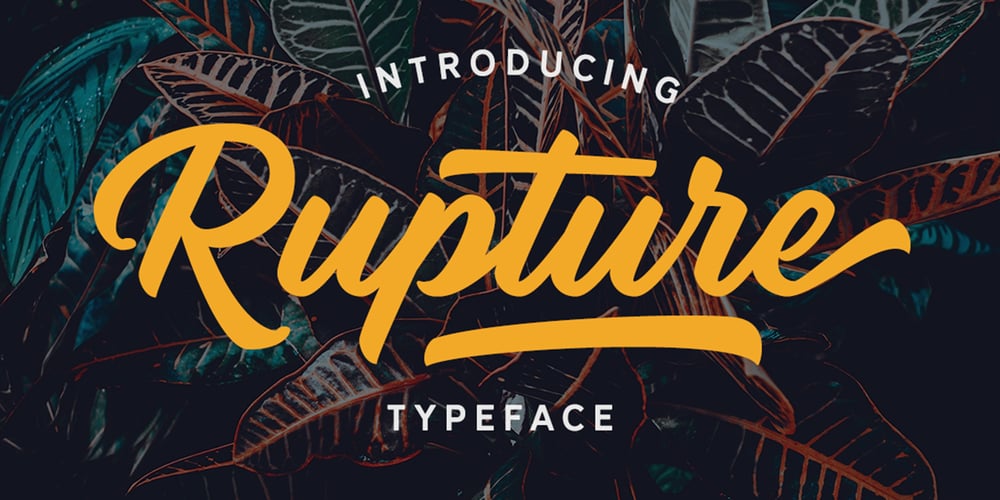
Rupture
Rupture font
Rupture Font Family was designed by Hendry Juanda and published by Letterhend. Rupture contains 1 styles and family package options. Rupture is a bold and modern script that will fulfil your design needs for casual themes such as logotype, quotes, watermarks, and more. This has many OpenType features like ligatures, stylistic alternates, contextual alternates, swash, and support for multi-language. It also already PUA Encoded.